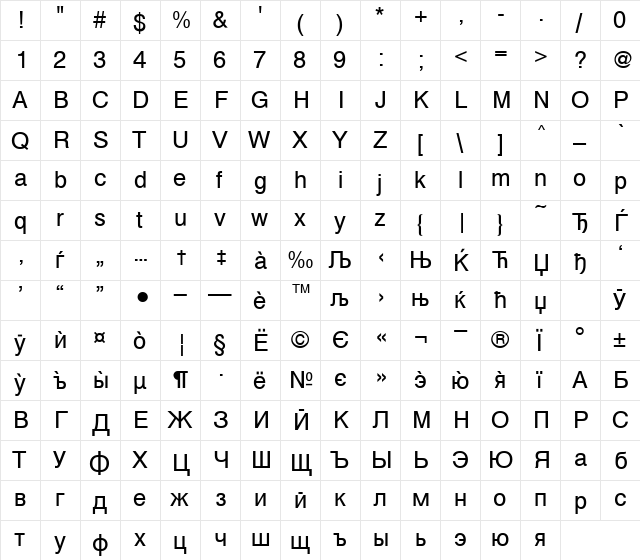
SwissCyr Regular Font Preview
SwissCyr Regular
SwissCyr Regular Font Details
Design Context for SwissCyr Typeface
SwissCyr offers clean, dependable letterforms without strong stylistic allegiance, making it a practical choice for designers who need flexibility.